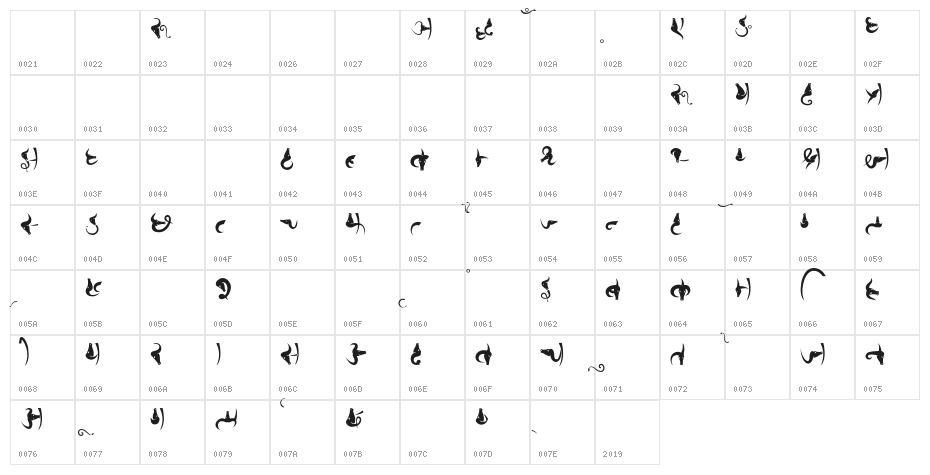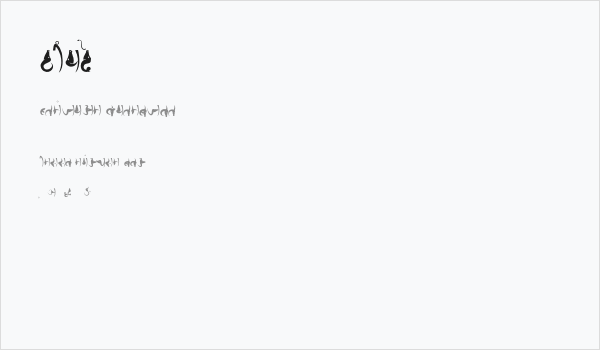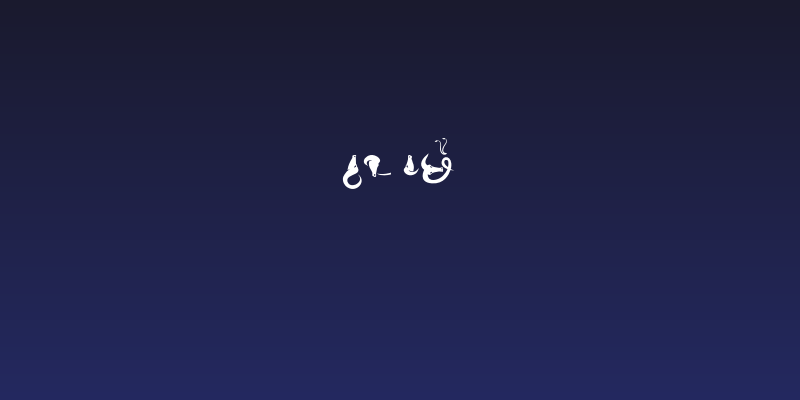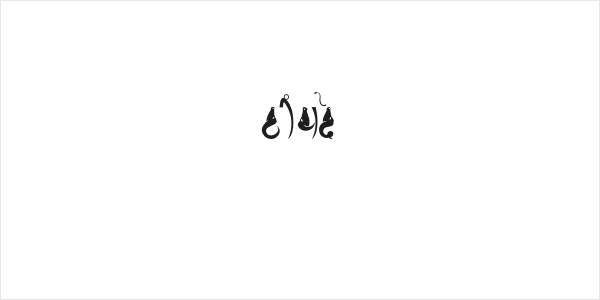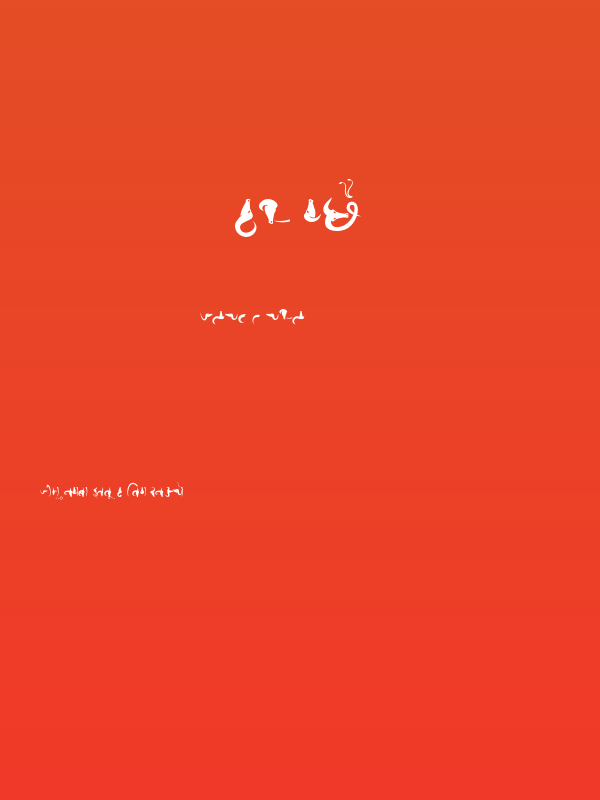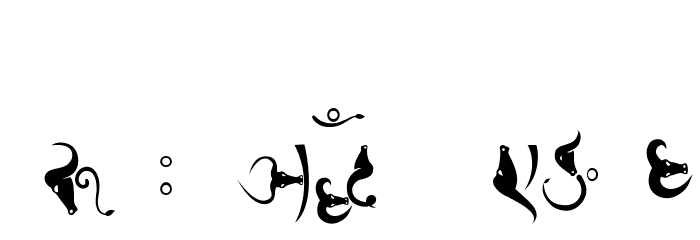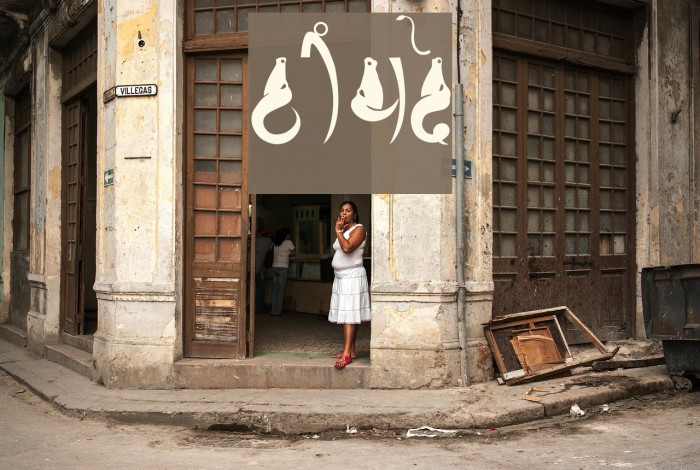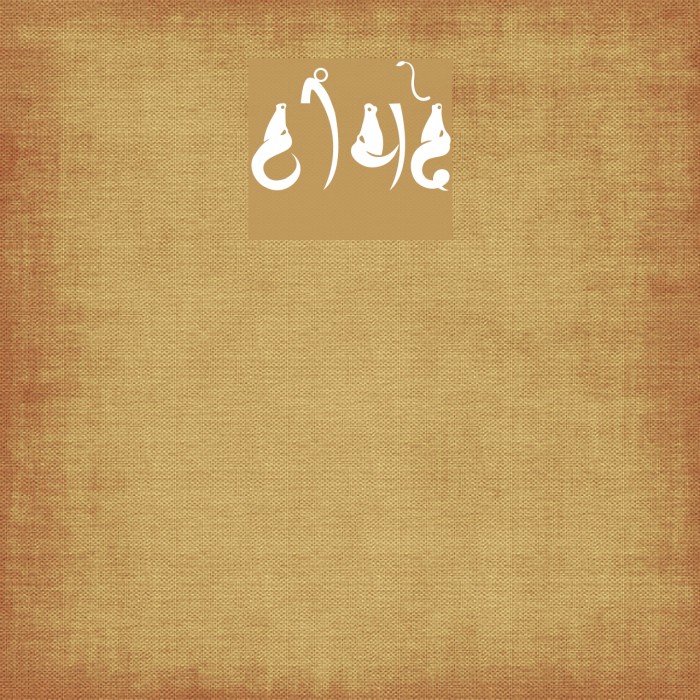
Bhains Font
| Vorgeschlagene Projekte | Perfect for thematic posters, branding for events or products related to animals, or any project needing a bold, artistic touch. |